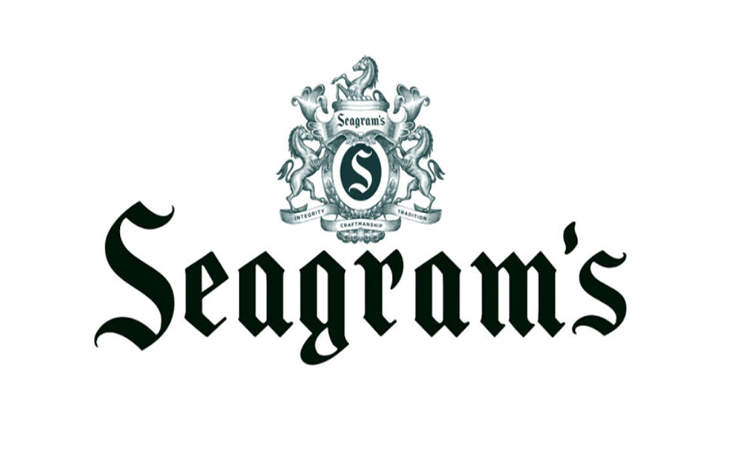
Seagram Font is a gothic medieval blackletter typeface with a unique visual style. Try combining the lowercase and alternate styles to create a unique logo or header design.
The geometric design balances out the authentic medieval look of this blackletter font, which keeps the style looking fresh and modern.
So, This is a wonderful font that has a perfect look, which is in keeping with the current era. And complete the best design of any kind. That was created and released by zanatlija firstly.
Font Name: | Seagram Font Family |
Style: | Gothic, Medieval, Display |
Font Designer: | zanatlija |
There are many variations and connections in this unique font and it is an international style.
Due to its stunning look, it is useful for logo typography, greeting or invitation cards designs, official business cards, developing games or website templates, banner ads, poster advertisement, brochures layout, as well as much more.
This blackletter font family comes in one unique style including regular. This font includes 242 characters and 139 unique glyphs.